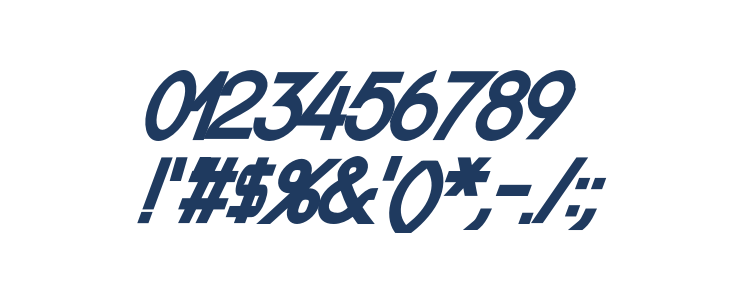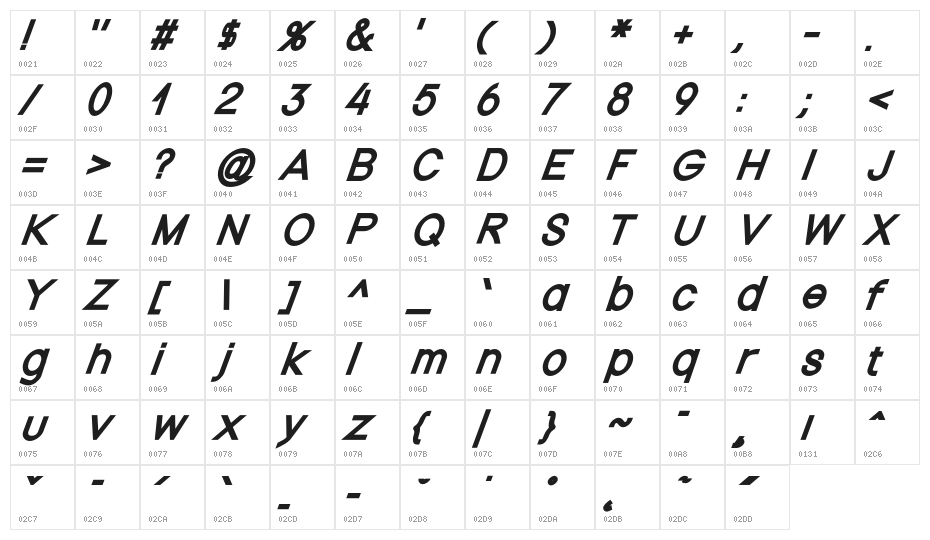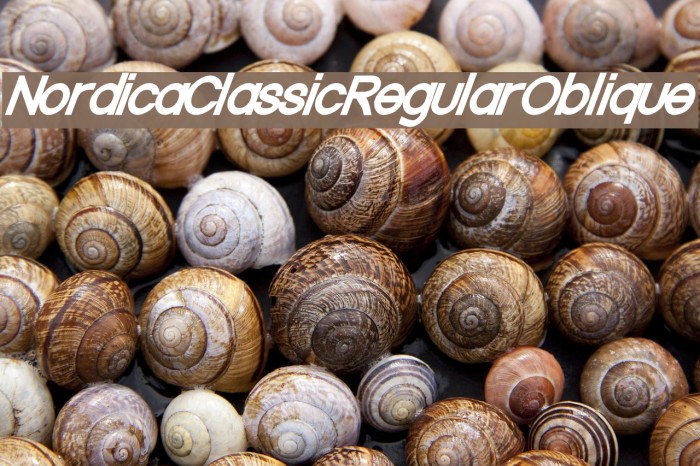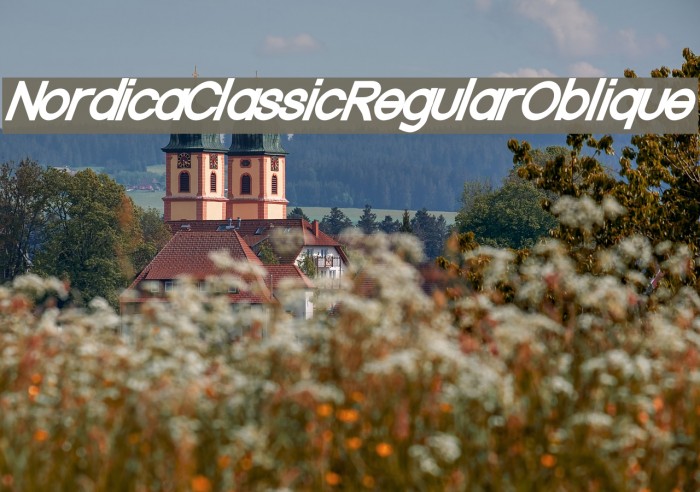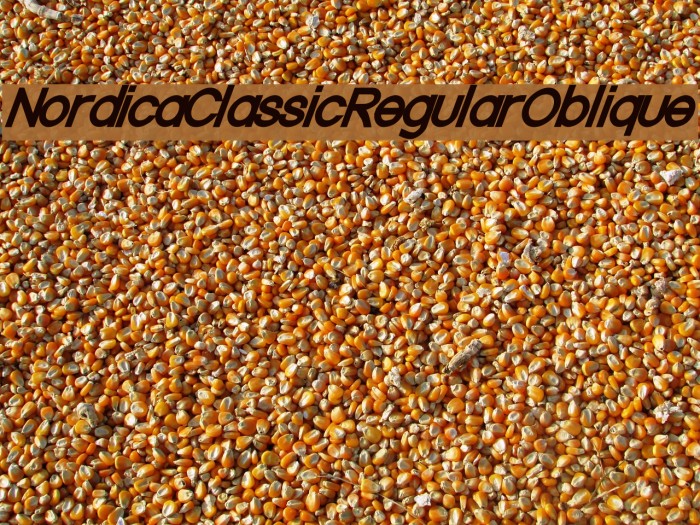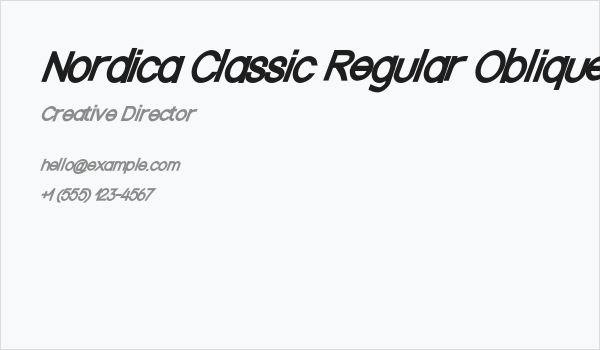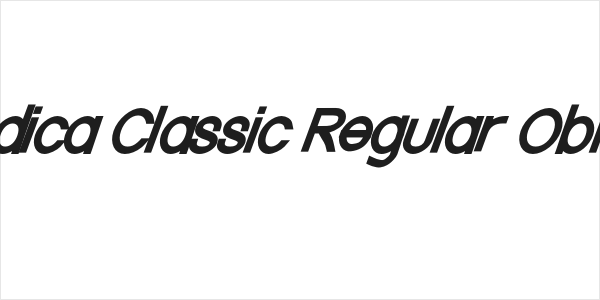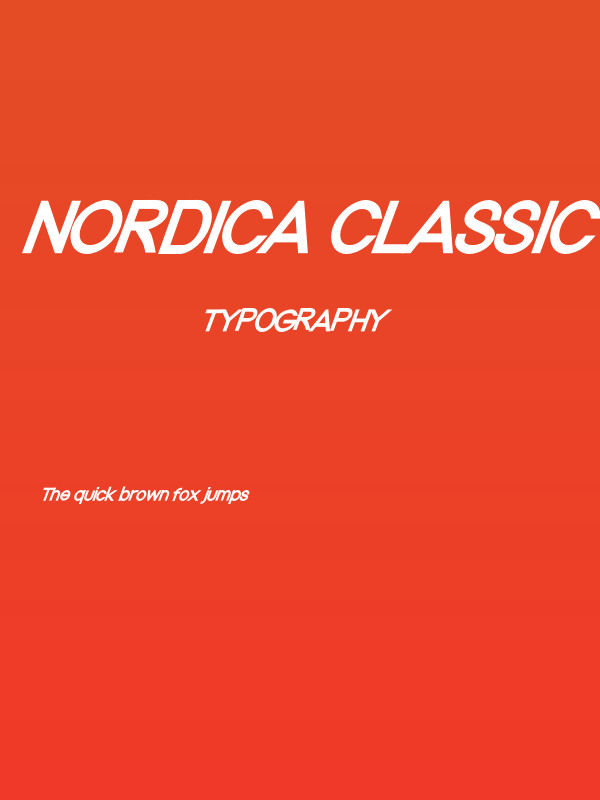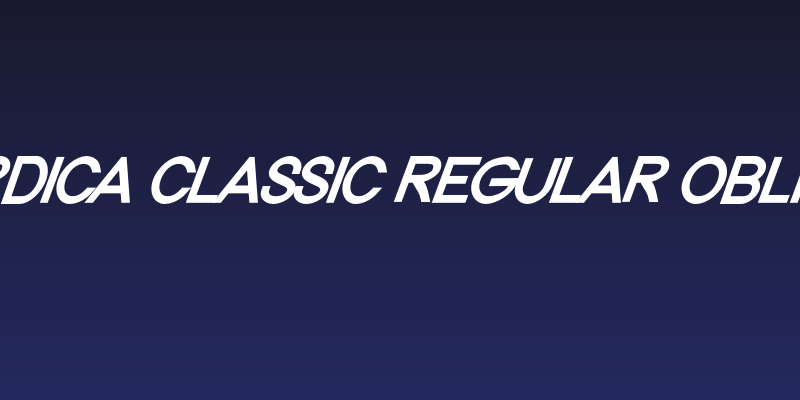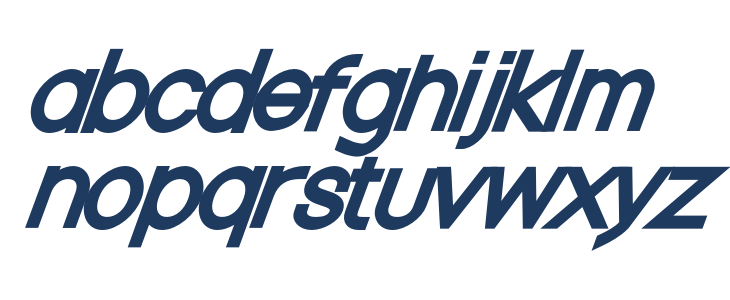
Nordica Classic Regular Oblique Font
Nordica Classic Regular Oblique Description
This font features a sleek and modern design with a distinct oblique style, giving it a dynamic and forward-leaning appearance. The characters are well-proportioned, with a consistent stroke width that maintains readability while adding a touch of elegance. The uppercase and lowercase letters are crafted with precision, offering a harmonious balance between form and function. The numerals are clear and bold, making them suitable for various applications. Special characters are included, enhancing the font's versatility for different design needs.